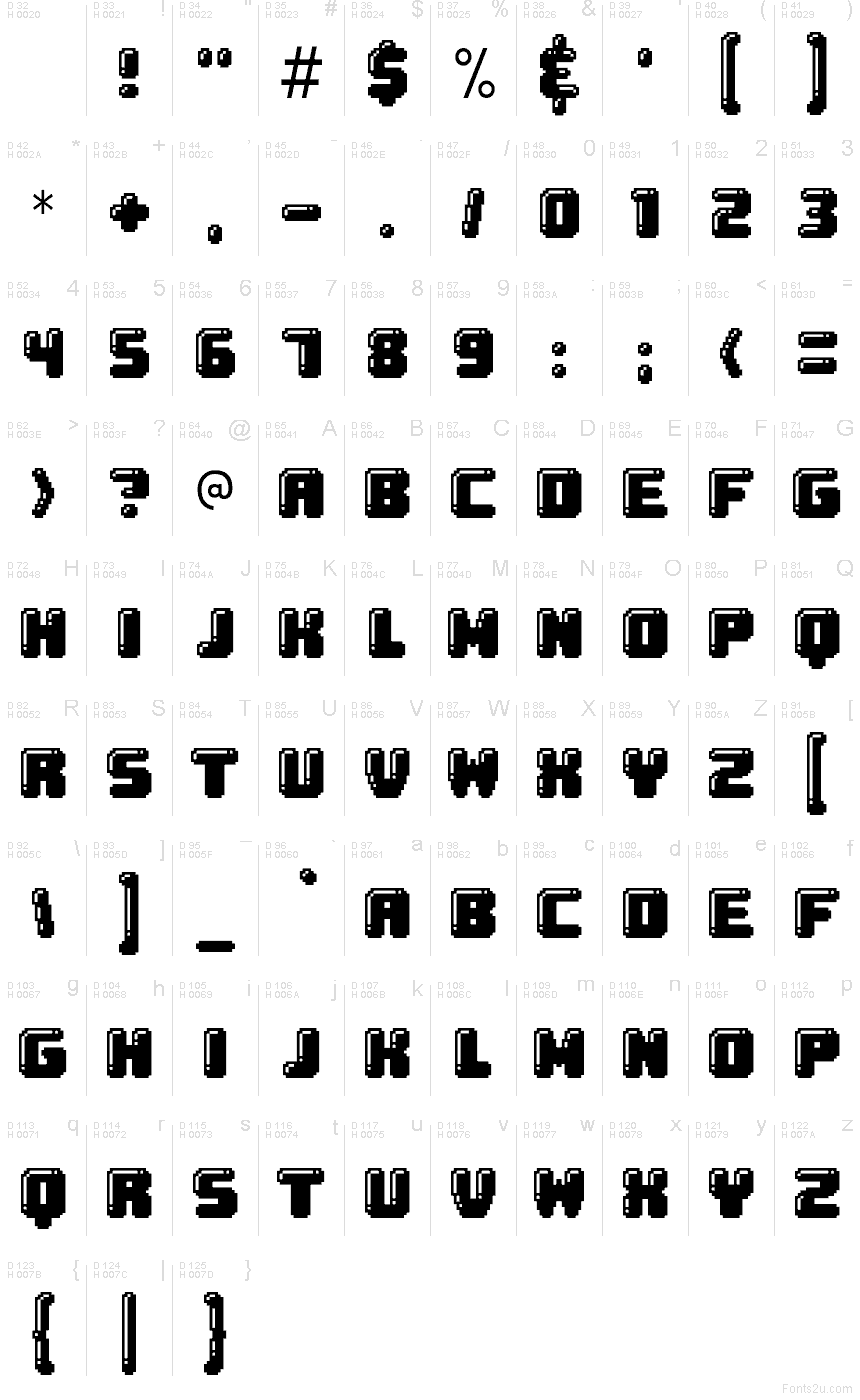
Elmore Pixels Regular
Elmore Pixels font by Élise Benoît of Microtype Fonts is a free pixelated bitmap typeface that looks like it just dropped out of a vintage arcade cabinet. Chunky square bodies, stepped curves, and tight, brick-like spacing give each word the weight of a game title screen or a glowing scoreboard. The rhythm is blocky but controlled, so even in all caps it stays legible and hits with that crunchy, 8‑bit energy.
Using Elmore Pixels, you can lock in a consistent retro voice across indie game menus, HUDs, splash screens, stream overlays, event posters, and bold social graphics. This free font shines when used large, where each pixel reads cleanly and becomes part of the graphic texture. For longer copy or UI labels, pair Elmore Pixels with a simple geometric sans in a smaller size to keep the nostalgia on top while the text underneath stays clear and modern.